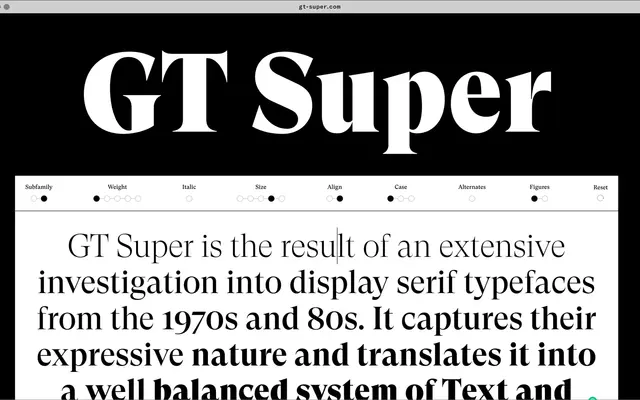
GT Super
Grilli Type · Noël Leu with Mirco Schiavone and Reto Moser · 2018
GT Super specimen from Grilli Type
Noël Leu's 1970s-80s display serif, available in Text and Display optical sizes across 20 styles.
A display serif by Noël Leu with Mirco Schiavone and Reto Moser, released in 2018 and offered in 20 styles. Grilli built it on an extensive investigation into 1970s and 80s display serifs, holding their expressive, calligraphic motions inside stable typographic shapes. Text and Display subfamilies cover both editorial and headline work, peaking in the swooning Display Super cut.
Grilli describe it as the result of an extensive investigation into 1970s and 80s display serifs, focused on the expressive and idiosyncratic nature of calligraphic motions held inside stable typographic shapes.